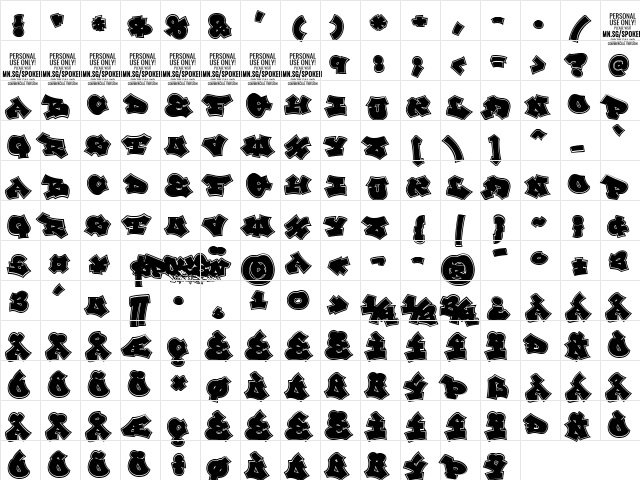
Spoken PERSONAL USE ONLY Regular
Foundry: Mans Greback
Designer: Mans Greback
Design Context for Spoken PERSONAL USE ONLY
Spoken PERSONAL USE ONLY is a composed and adaptable typeface that performs quietly and consistently across a wide range of design contexts.